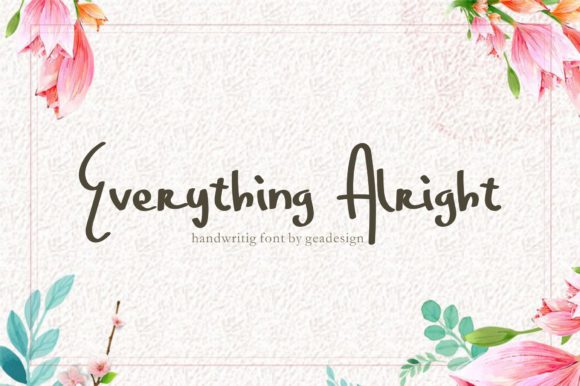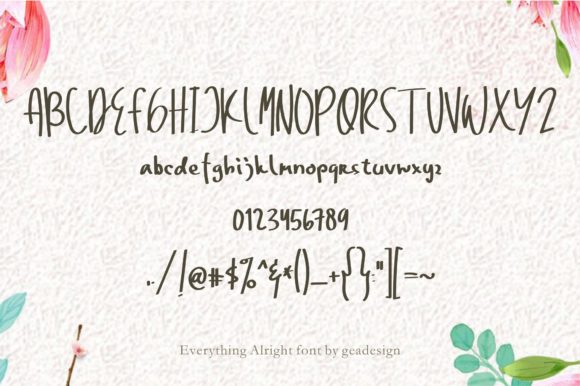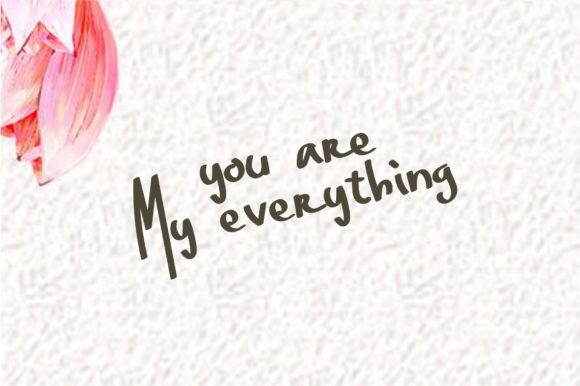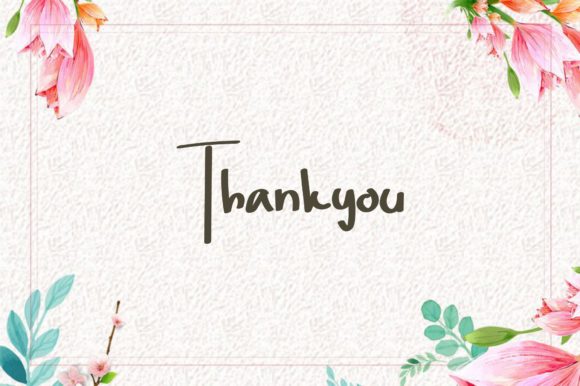
Everything Alright Font
About Everything Alright Font
Everything Alright is a handwritten font that is simple and modern. This font can really make your design stand out from the rest of the crowd.